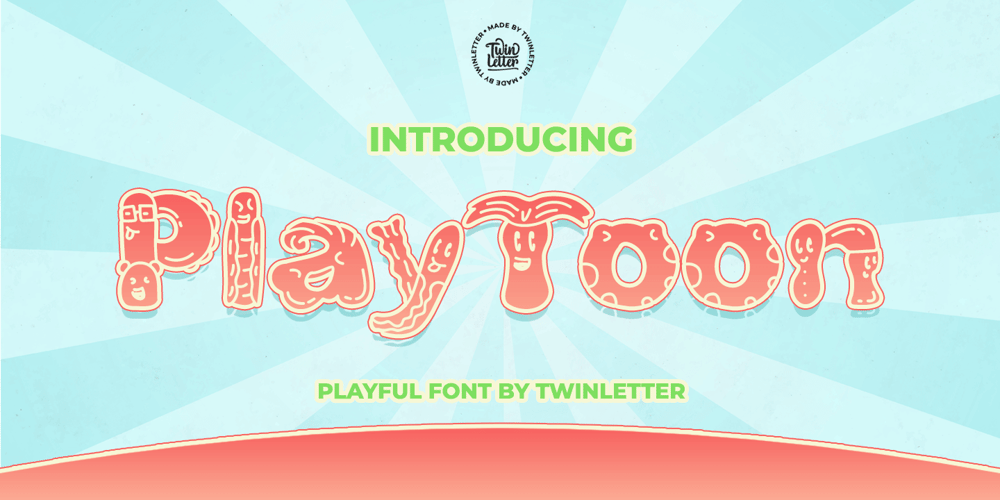
Play Toon Font Family was designed by Rozikan and published by Twinletter. Play Toon contains 1 styles and family package options. Playtoon is a playful display typeface that may be used for a variety of projects.Each letter in this typeface has been specifically created to emphasize a fun, distinctive, and distinct personality.also in a unique pattern on each letter, greatly enhancing the uniqueness and enjoyment of your project.Of course, this typeface is appropriate for a wide range of creative applications, including game covers, titles, book covers, outdoor events, posters, banners, promotional material, movie titles, YouTube covers and thumbnails, children’s games, cartoon projects, and other unique projects.